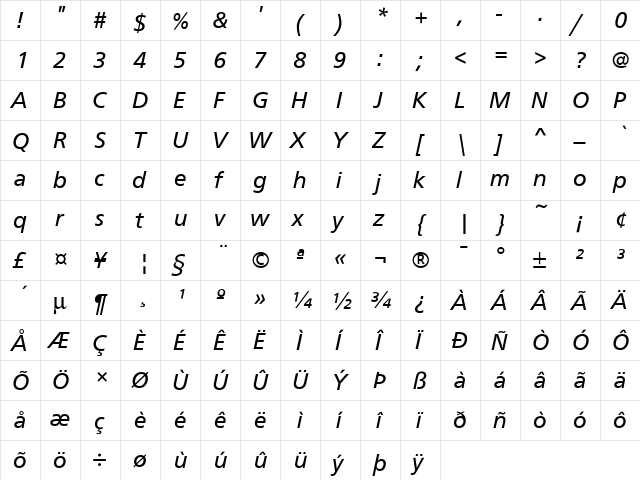
Frutus T Italic
Design Context for Frutus T Typeface
Frutus T takes a measured approach to typography — its balanced proportions and neutral character make it a reliable workhorse for both digital and print work. The slanted form adds forward momentum and visual energy.
Pro Tip: Try Frutus T for annotation and caption copy alongside an upright companion — the contrast in angle creates a dynamic but ordered typographic system.